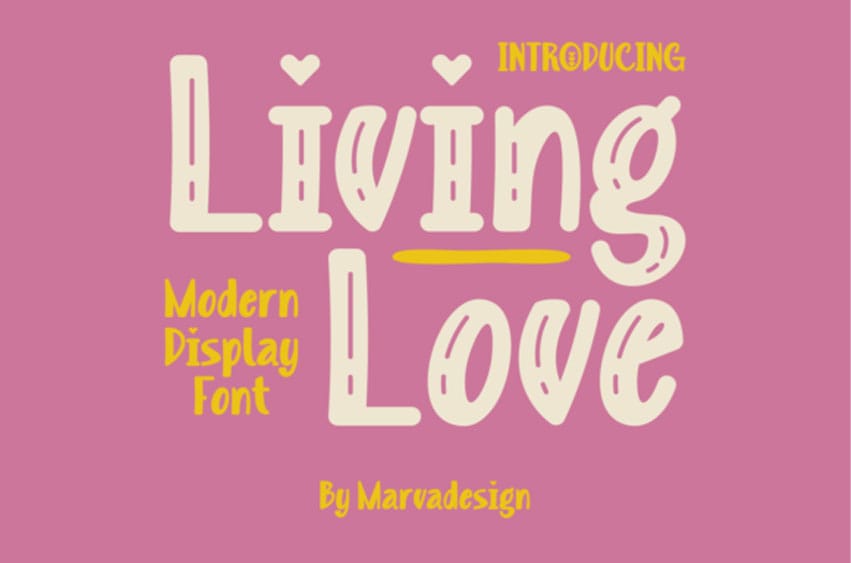
Living Love Font is both romantic and modern, with letters that exude a sense of elegance and beauty. The letters are well-designed, with graceful curves and delicate details that create a sense of charm and sophistication. Its chic and contemporary appearance makes it perfect for wedding invitations, greeting cards, and designs that require a touch of romance and luxury.